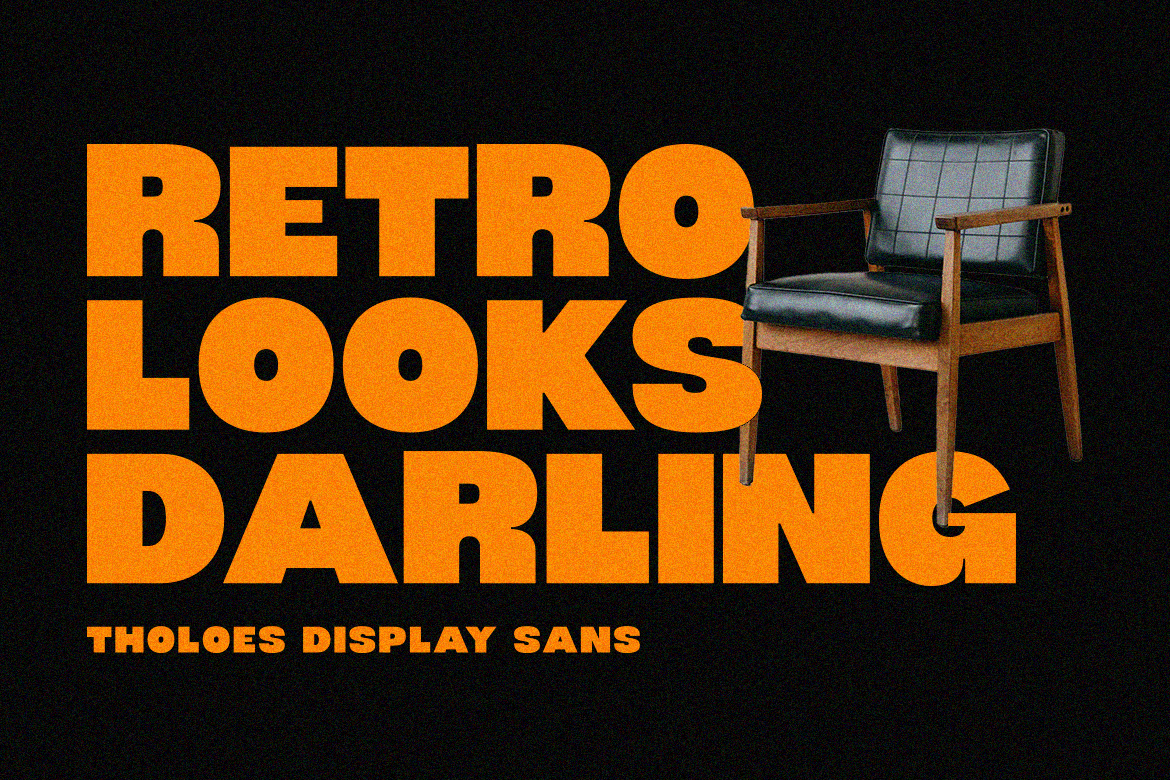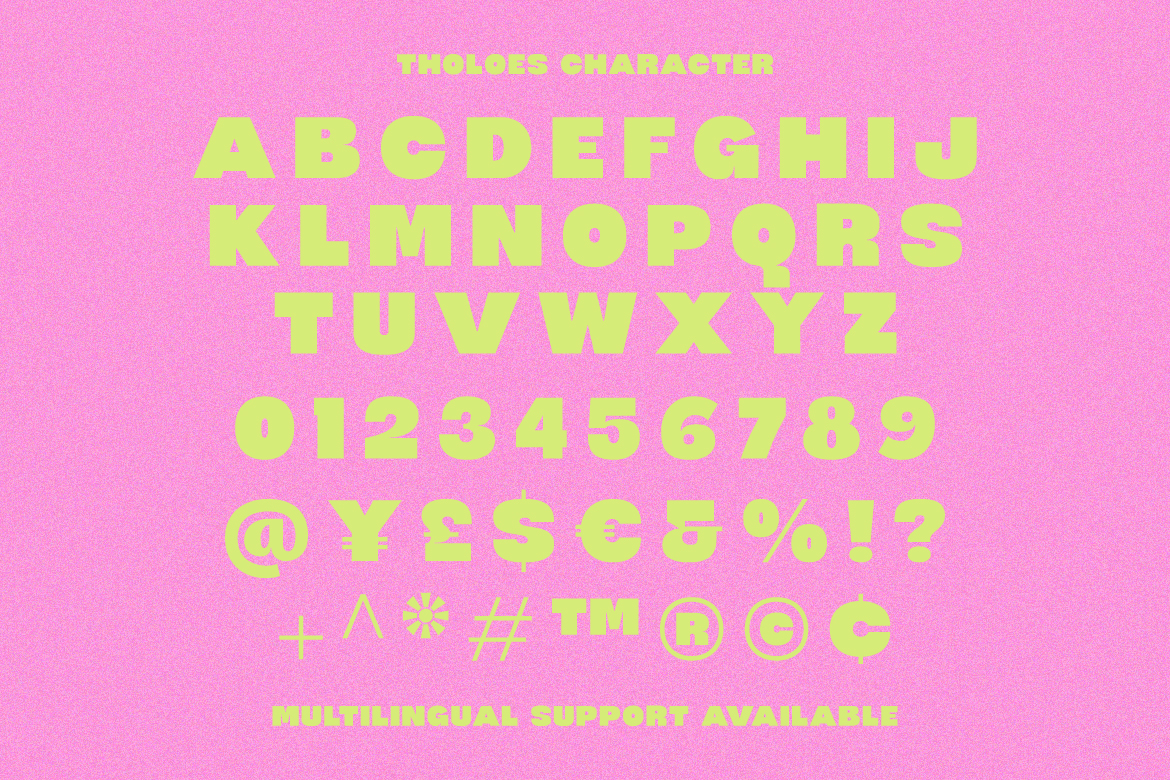
Tholoes Display Sans
Tholoes Display Sans.
Elevate your designs with “Tholoes” – a bold, dynamic font that radiates confidence. Ideal for posters, branding, logos, and social media, its strong presence commands attention and leaves a lasting impact. Make your mark with “Tholoes” and let your creativity speak volumes.
- Features: Uppercase, Lowercase, Numeral, Punctuation & Multilingual.
- Multilingual contained: Afrikaans, Albanian, Asu, Basque, Bemba, Bena, Breton, Catalan, Chiga, Cornish, Danish, Dutch, English, Estonian, Filipino, Finnish, French, Friulian, Galician, German, Gusii, Indonesian, Irish, Italian, Kabuverdianu, Kalenjin, Kinyarwanda, Luo, Luxembourgish, Luyia, Machame, Makhuwa-Meetto, Makonde, Malagasy, Manx, Morisyen, North Ndebele, Norwegian Bokmål, Norwegian Nynorsk, Nyankole, Oromo, Portuguese, Quechua, Romansh, Rombo, Rundi, Rwa, Samburu, Sango, Sangu, Scottish Gaelic, Sena, Shambala, Shona, Soga, Somali, Spanish, Swahili, Swedish, Swiss German, Taita, Teso, Uzbek (Latin), Volapük, Vunjo, Zulu. For any questions please contact me ????